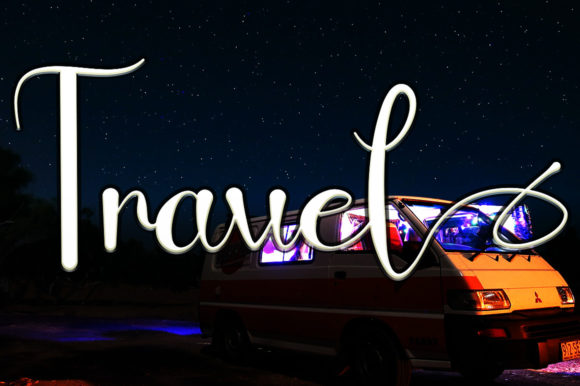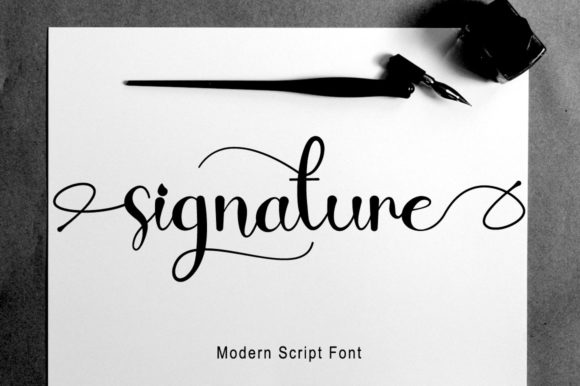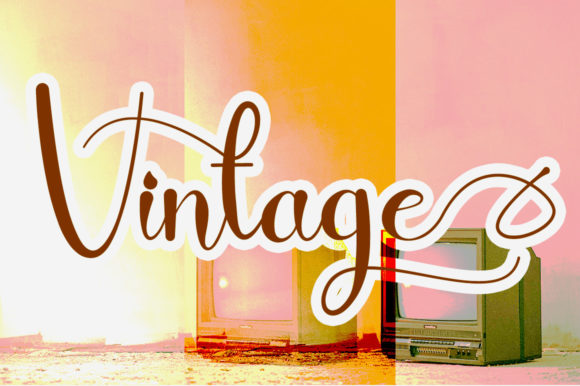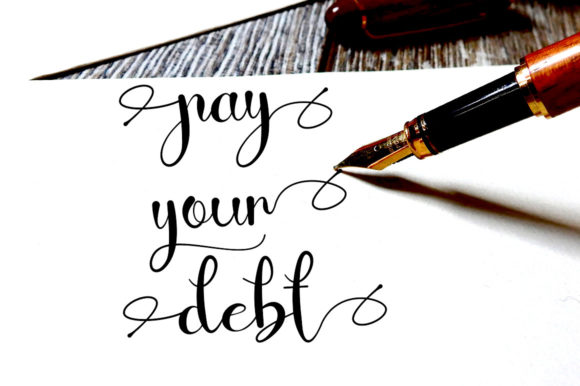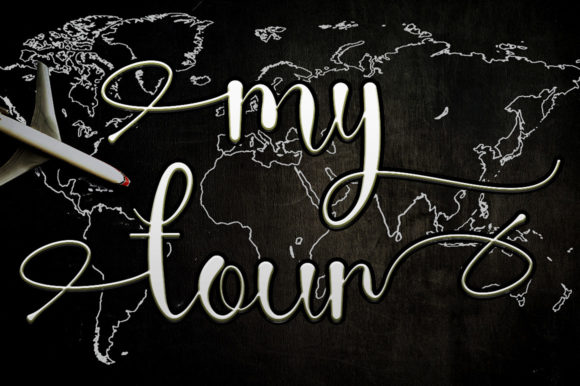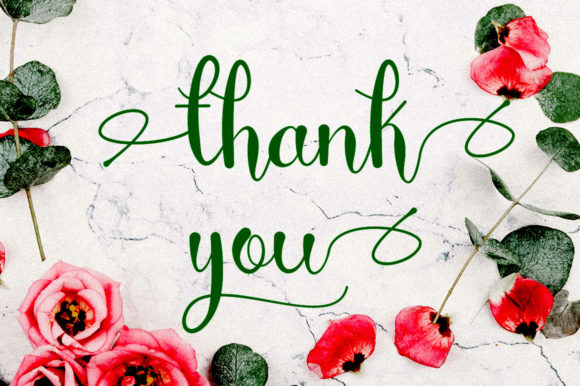
Myhoney Font
About Myhoney Font
Myhoney is an attractive script font featuring charming, playful characters that seem to dance along the baseline. This font is PUA encoded which means you can access all glyphs and swashes with ease!